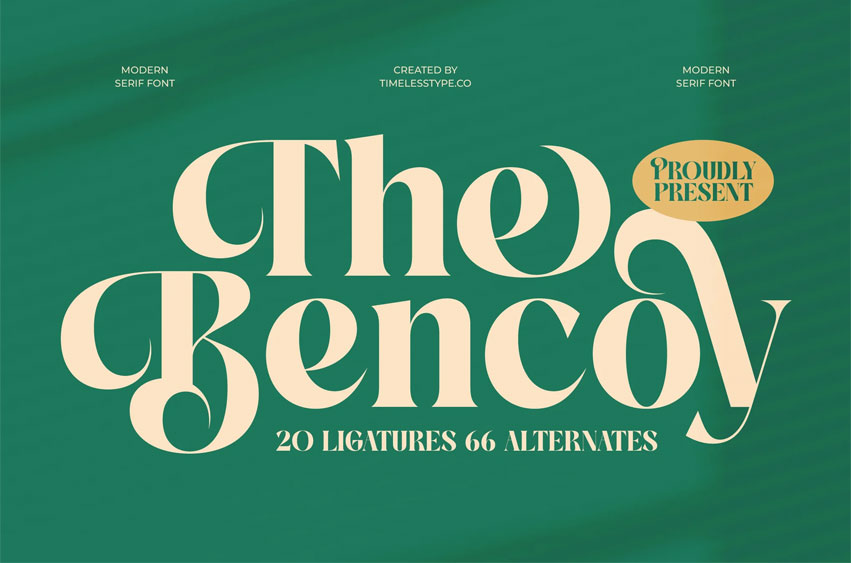
The Bencoy Font
The Bencoy Font is a modern serif display font that perfectly balances sophistication, contrast, and creativity. Featuring 20 ligatures and 66 alternates, this font delivers a refined aesthetic suitable for luxury branding, editorials, logo design, packaging, and elegant invitations.
With its bold curves, high contrast strokes, and graceful letterforms, The Bencoy embodies timeless beauty reimagined for the modern era. Every letter flows with confidence and class, making it a perfect choice for designers seeking a versatile serif with personality and distinction.